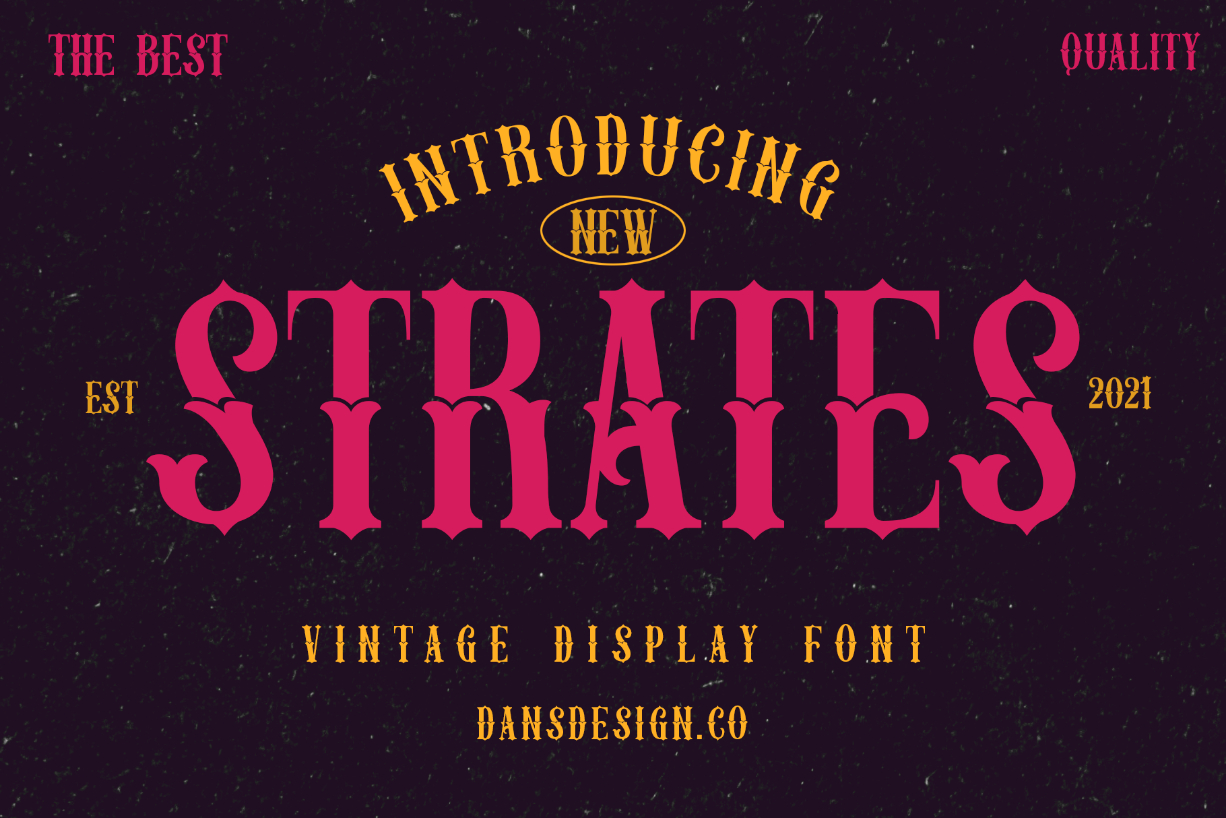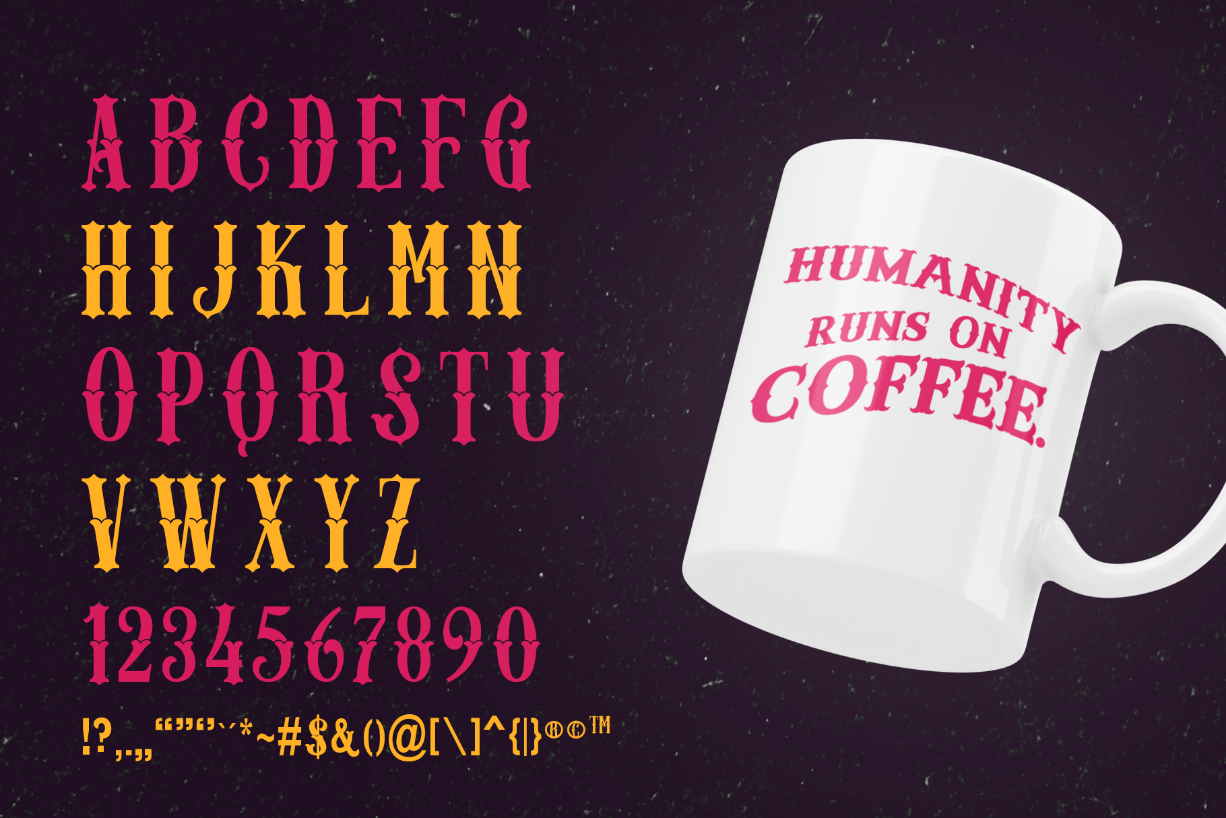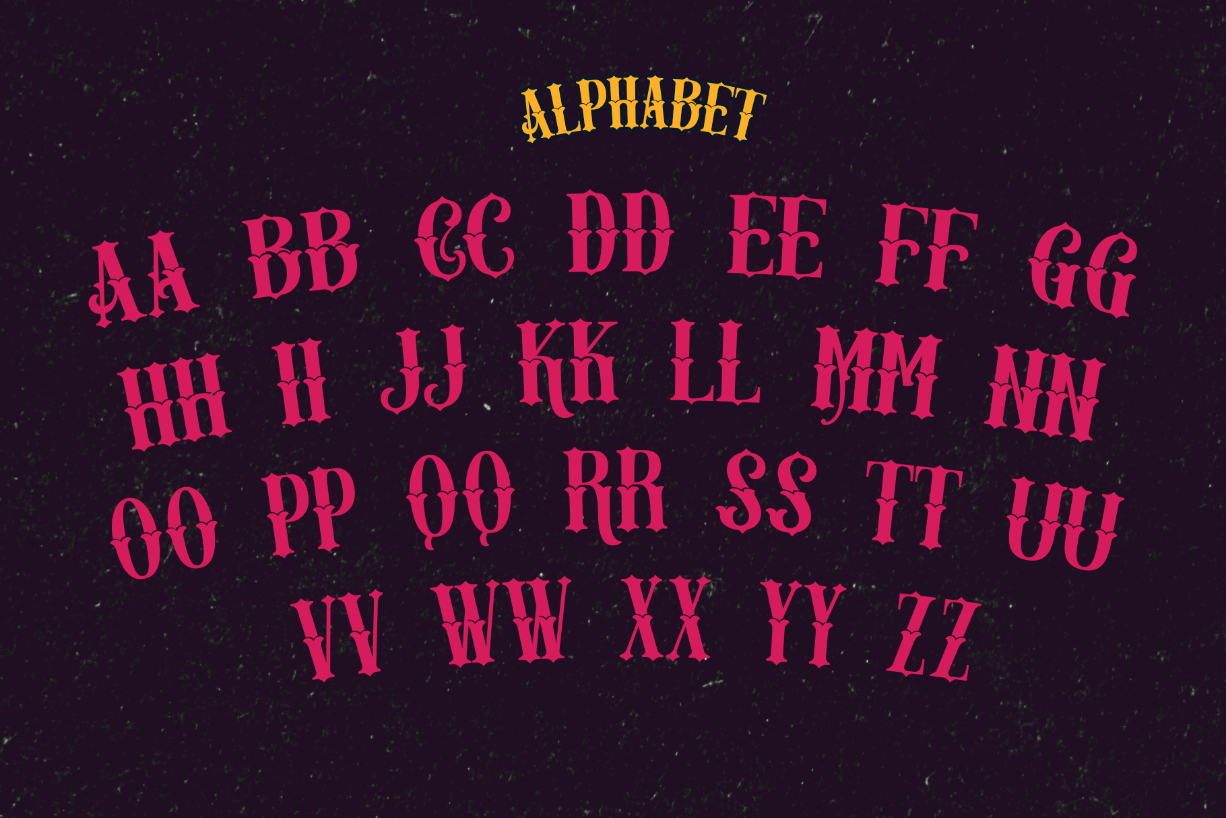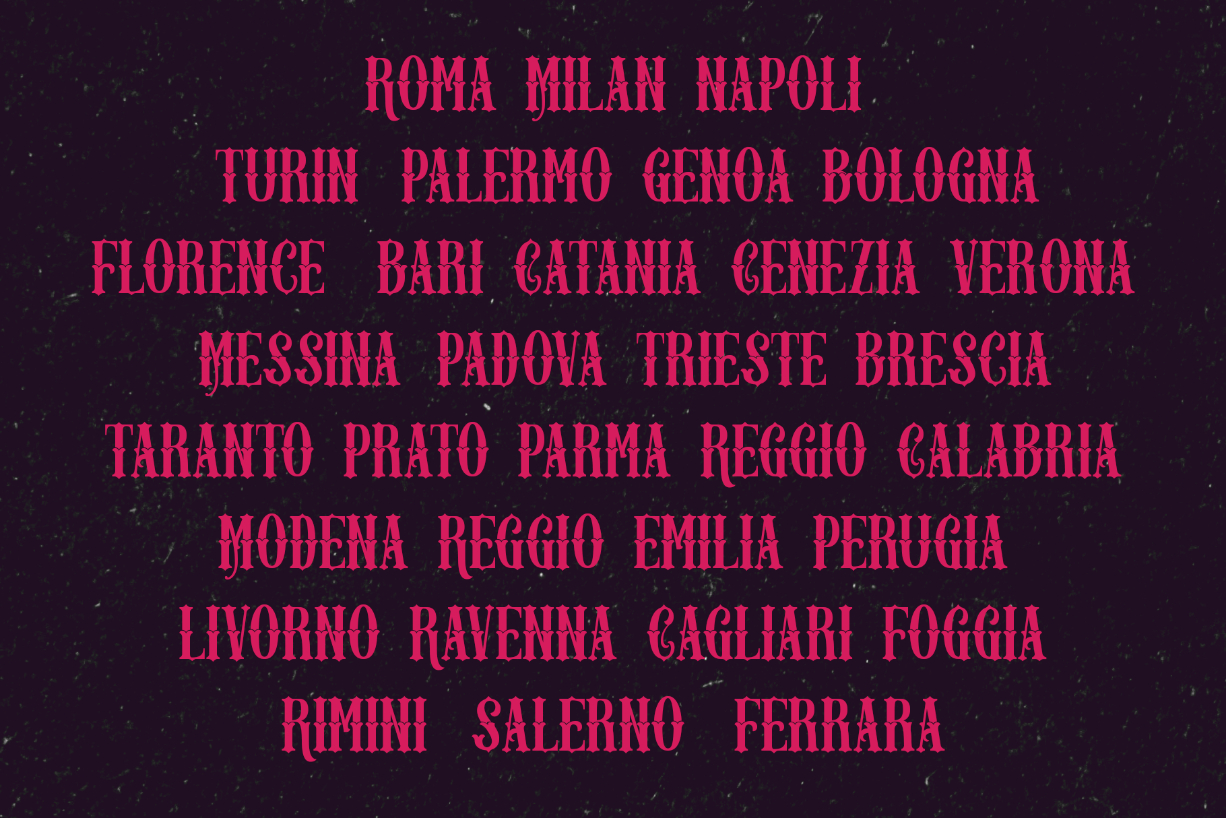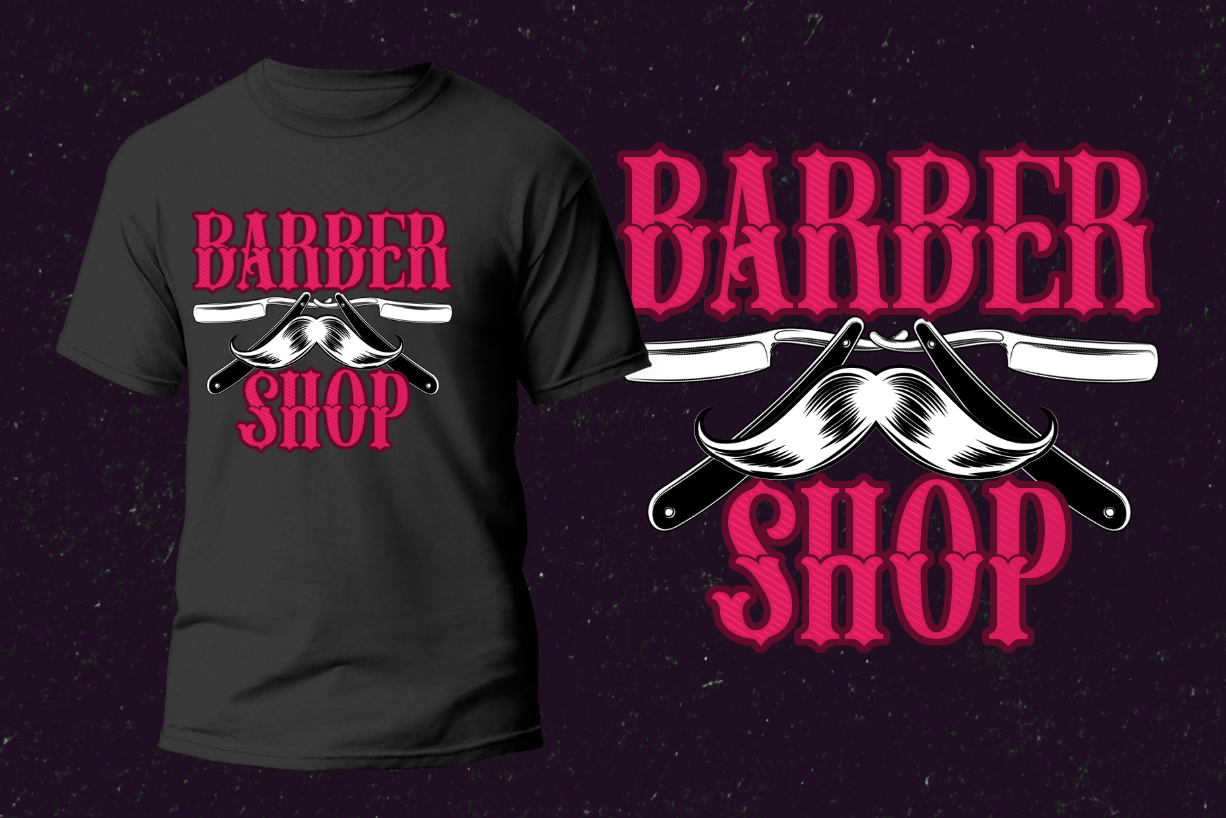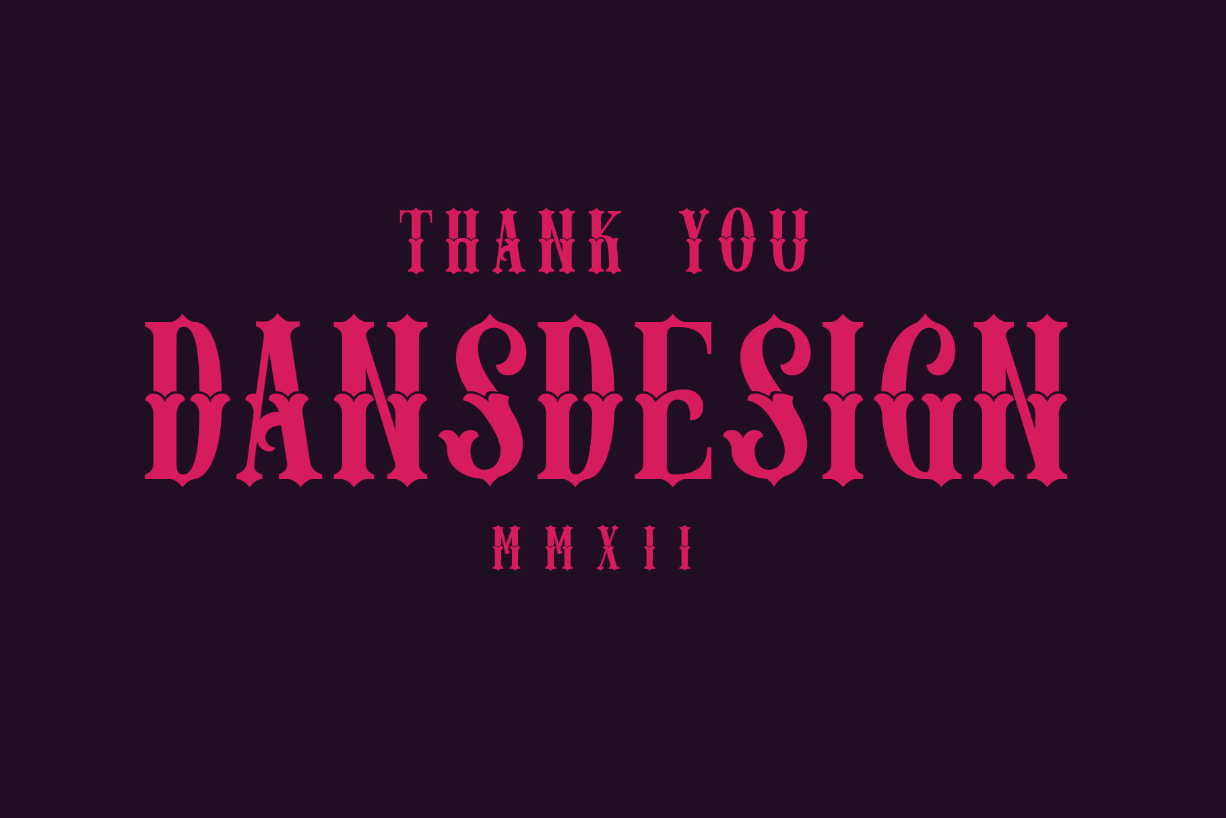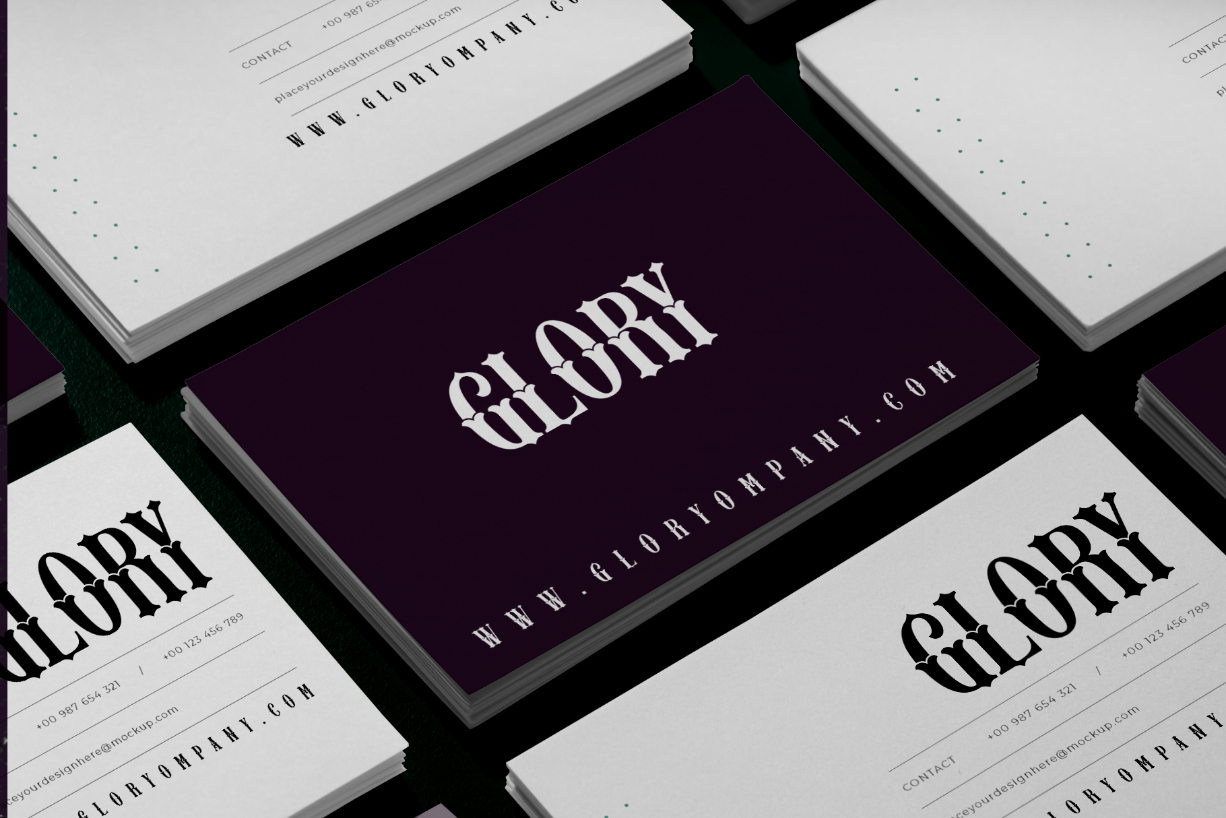
Strates Font
About Strates Font
Strates is a vintage-looking blackletter font that will impress you with its boldness and elegance. The font is suitable and useful for product logo, poster title, headline, packaging, badge, packaging logo, clothing brand logo, Vintage design, and much more.